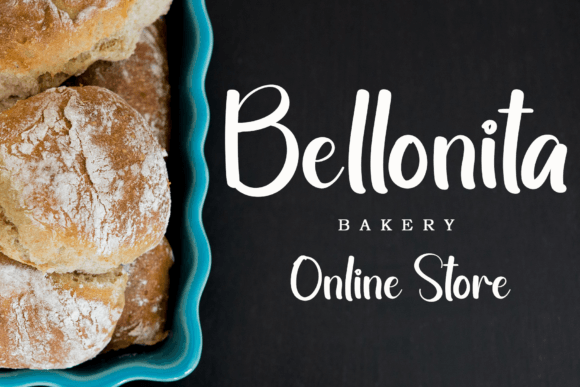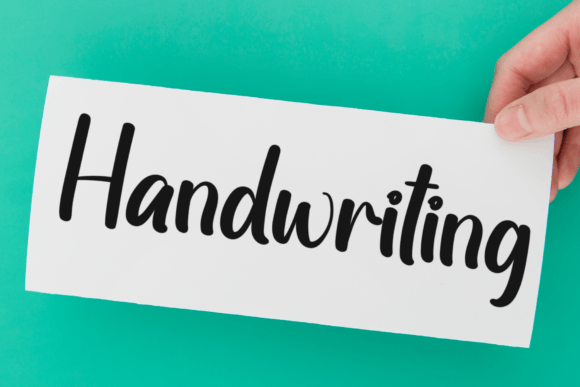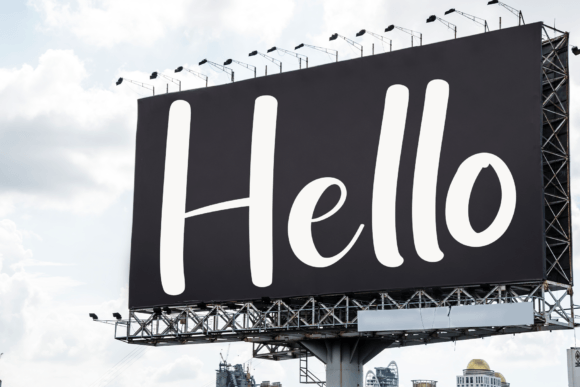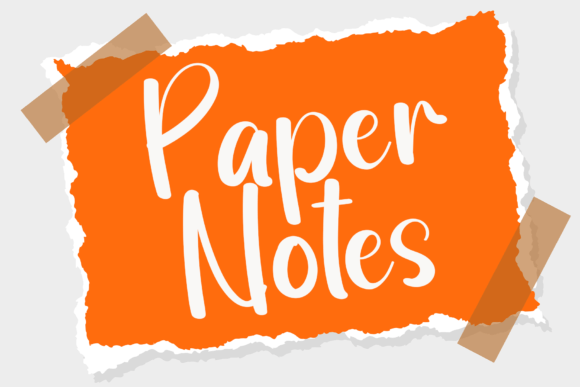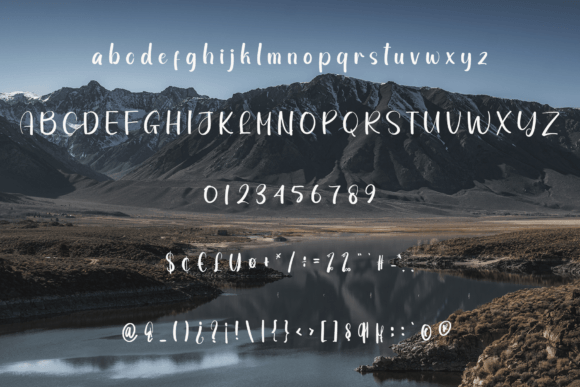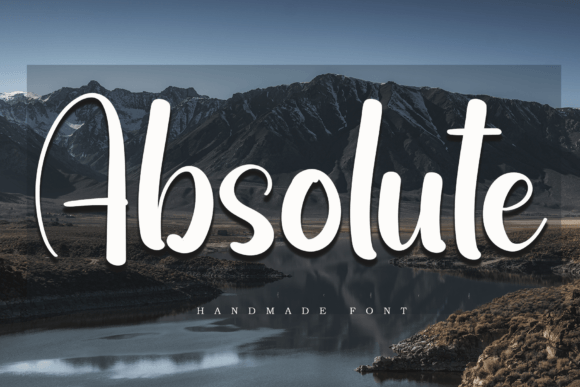
The Perfect Script for Your Next Masterpiece
You’ve spent hours pouring over design concepts, tweaking colors, and adjusting layouts. But there’s one element that can make or break the entire look – the font. As a designer, you know that the right script can elevate your work from good to stunning. And that’s exactly what you’ll get with the Absolute Font.
This beautiful handwritten font is designed to add a touch of luxury to any design project. With characters that dance along the baseline, Absolute Font brings a playful yet sophisticated feel to your work. Whether you’re creating a wedding invitation, a branding package, or a social media campaign, Absolute Font is the perfect addition to take your designs to the next level.
With Absolute Font, you’ll have the freedom to express your creativity and bring your unique vision to life. Its versatility and elegance make it a valuable asset for any designer looking to add a special something to their work.
Key Features of Absolute Font
- Unique Character Set: Absolute Font includes a unique set of characters, including ligatures, swashes, and ornaments, adding a touch of elegance to any design.
Design Review: Absolute Font
Overall, I’m quite impressed with the Absolute Font. It’s a well-designed, versatile typeface that’s perfect for a wide range of projects. ✨ Here are some of its strengths:
- Beautifully crafted letterforms that exude elegance and sophistication.
- Excellent legibility, making it suitable for both body text and headlines.
- Wide range of weights and styles, allowing for a high degree of customization.
- OpenType features that enable advanced typography capabilities.
However, as with any font, there are some limitations to consider: ⚠️
- Some users may find the font too formal or conservative for certain projects.
- The font’s width can make it challenging to fit into narrow columns or small spaces.
- The OpenType features can be overwhelming for users who aren’t familiar with advanced typography.
Overall, I think the Absolute Font is a solid choice for designers who want a reliable, high-quality typeface. While it may not be the best fit for every project, its strengths far outweigh its limitations. With careful consideration and planning, I believe the Absolute Font can elevate even the most mundane designs to new heights.
Tips for Getting the Most Out of Absolute Font
Use Absolute Font for headings and titles to add a touch of sophistication to your designs.
Experiment with different font sizes and styles to create visual hierarchy in your designs.
Combine Absolute Font with other fonts to create a unique and visually appealing design.
Use Absolute Font for:
Business cards and letterheads
Marketing materials and brochures
Website headers and footers